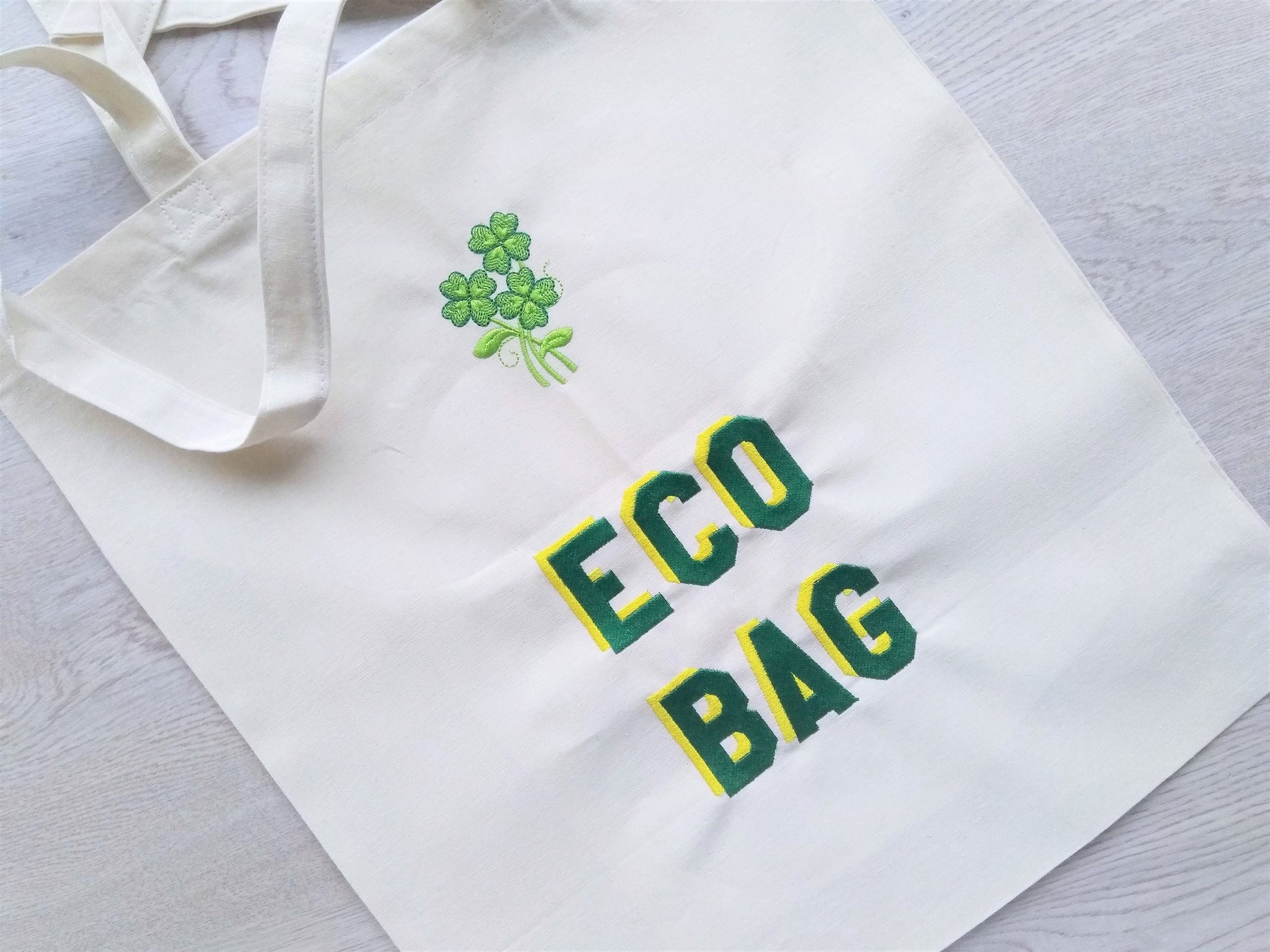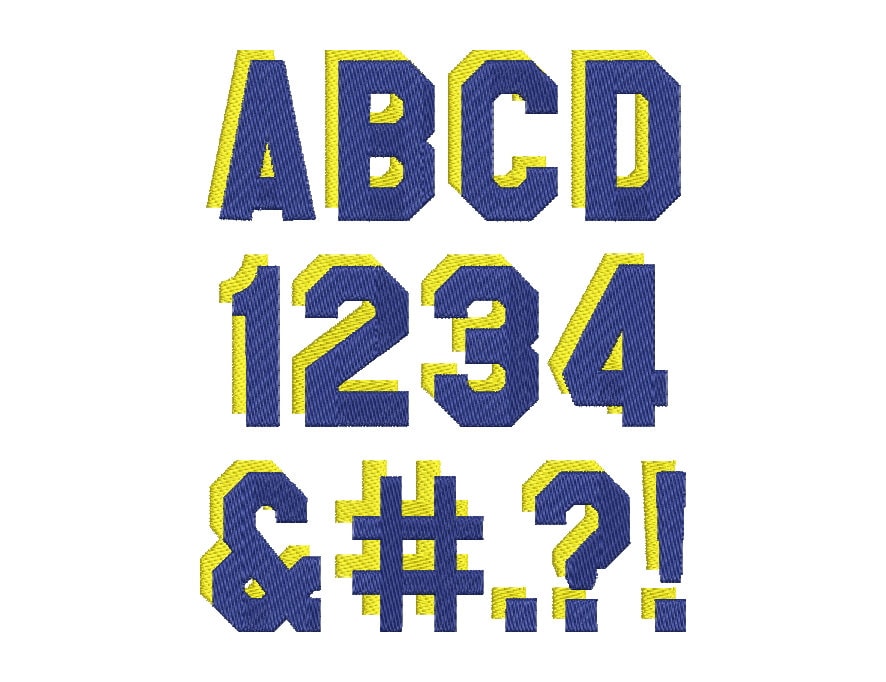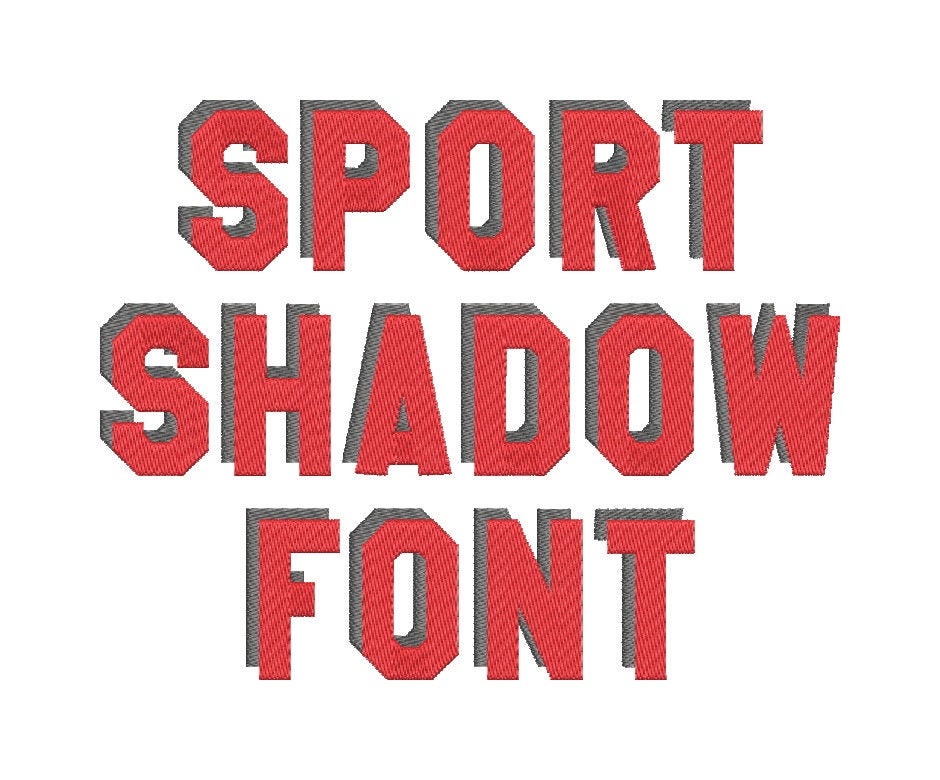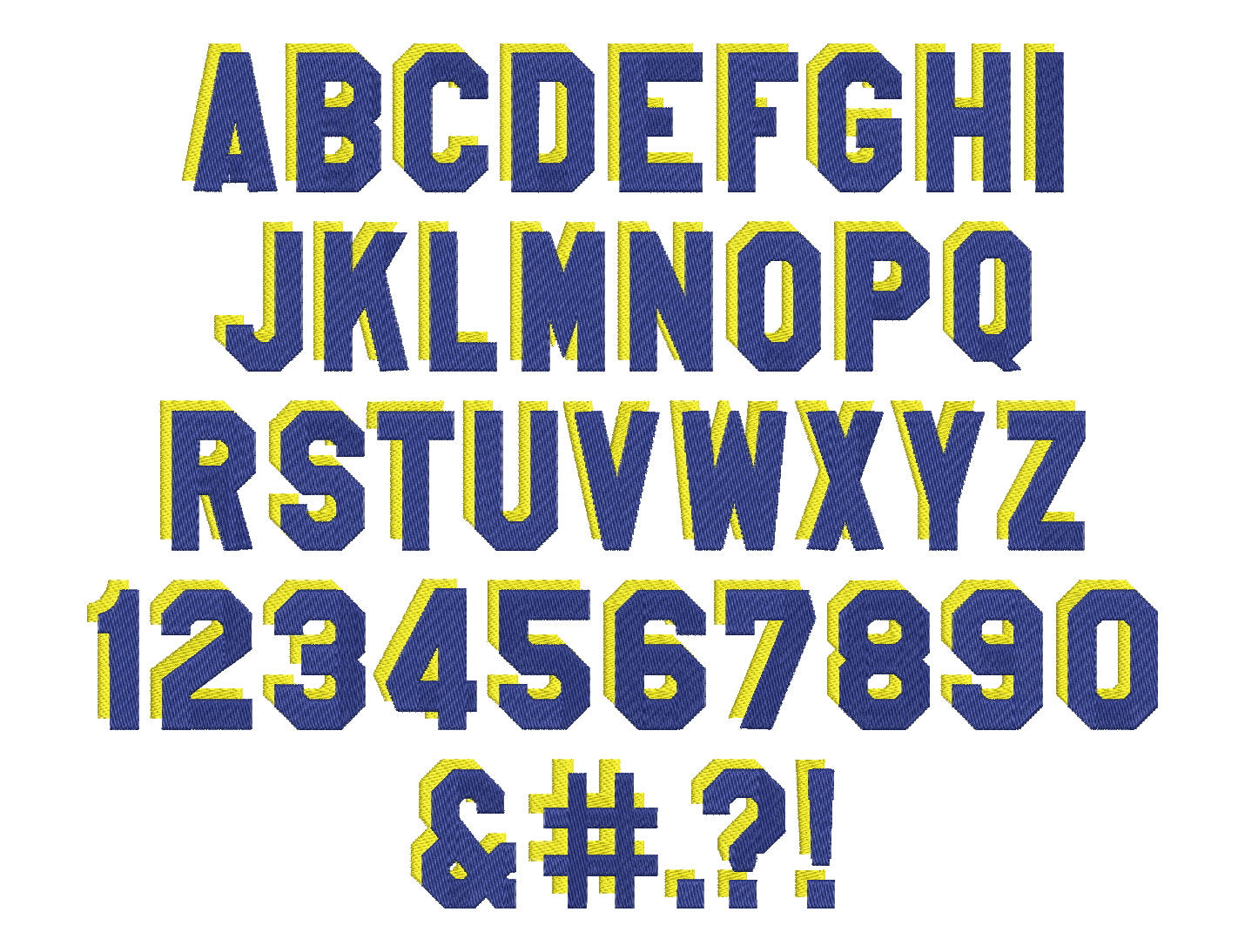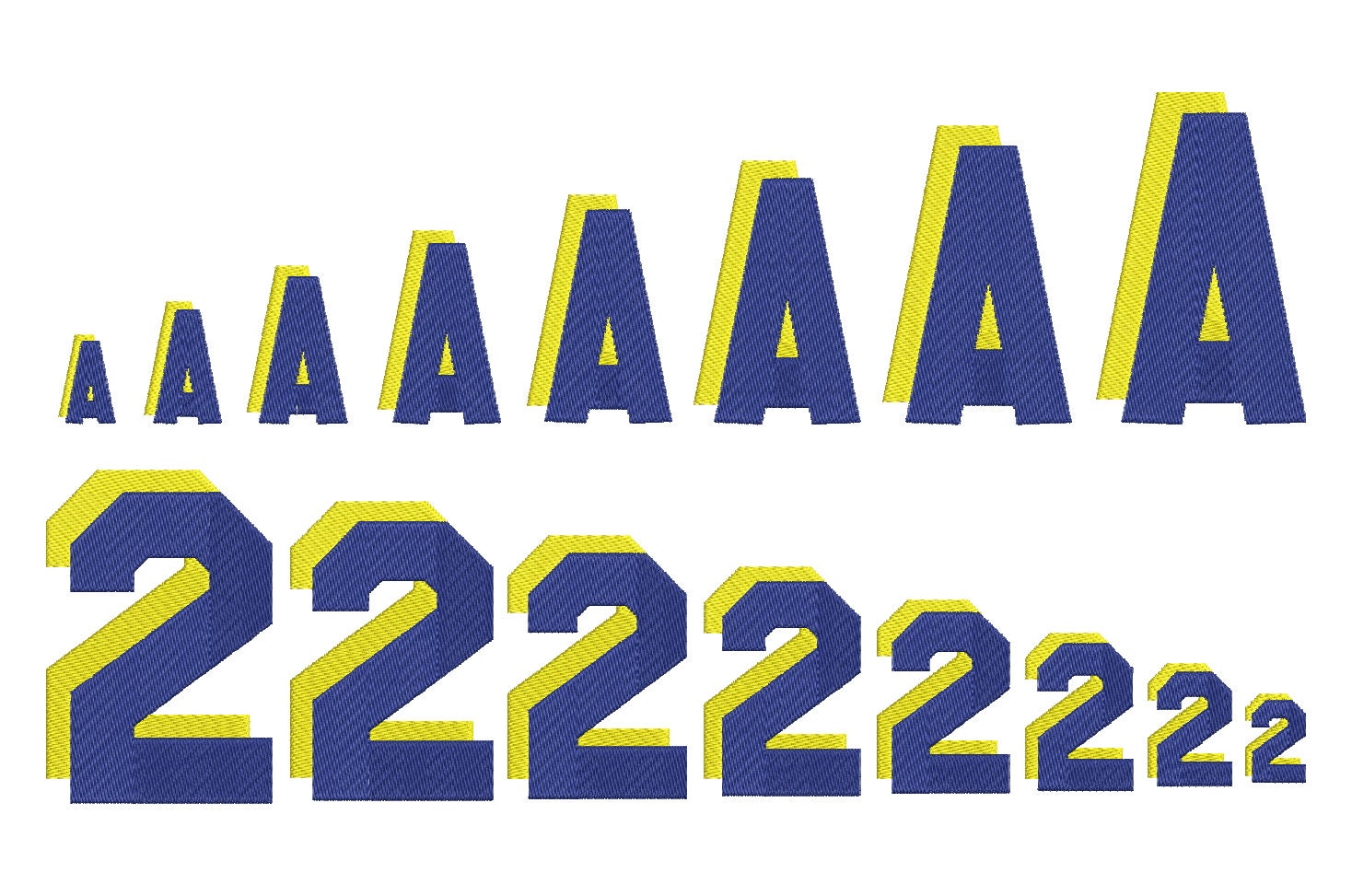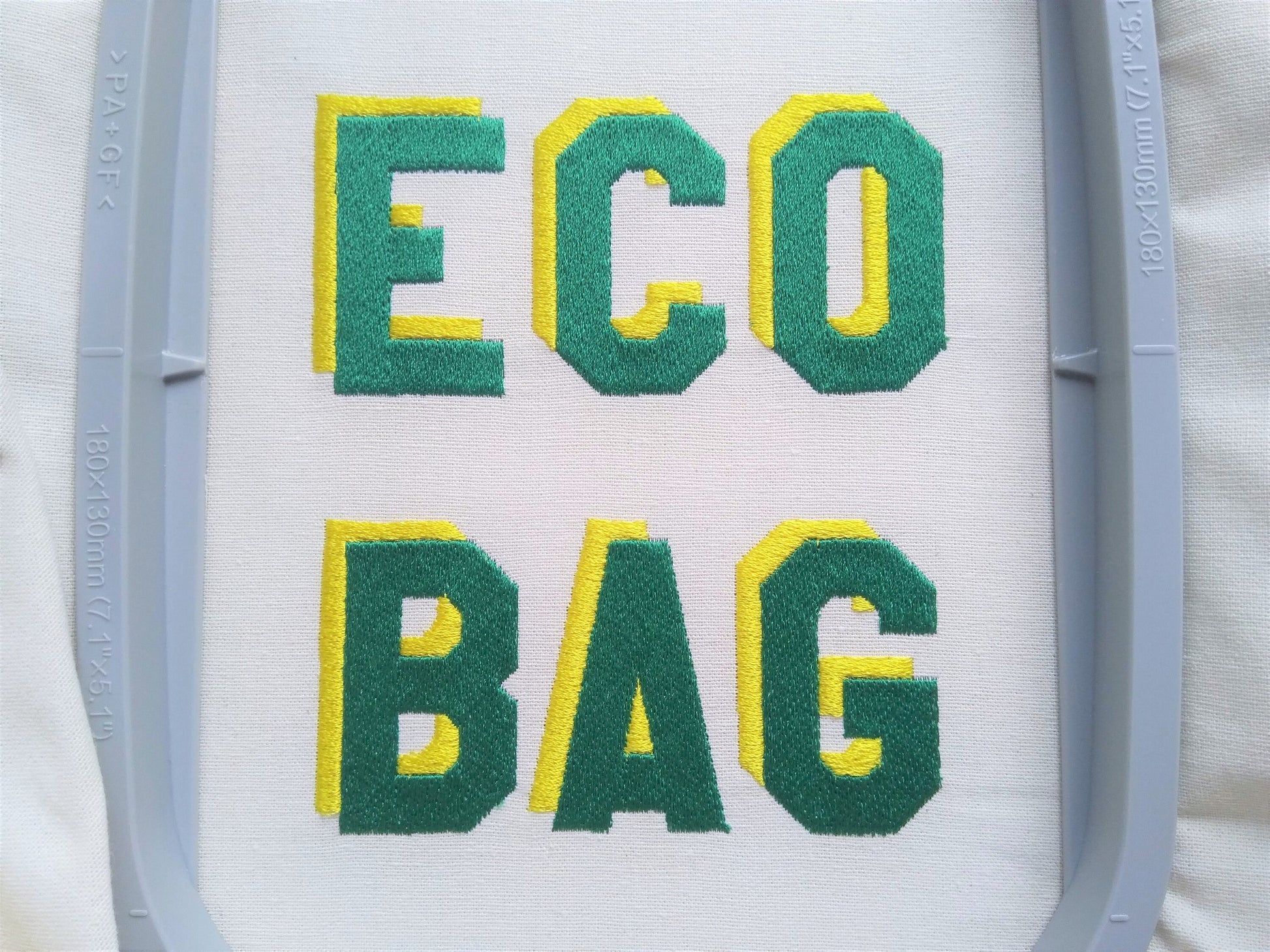
Or click to open the linkA varsity collegiate block font with a drop shadow, in fill stitch. Made for team shirts, jerseys, caps and sports bags.
Uppercase letters A to Z, numbers 0 to 9 and punctuation, in eight sizes: 1, 1.4, 1.8, 2.2, 2.6, 3, 3.4 and 3.8 inches. Fill stitch letters with a contrasting shadow.